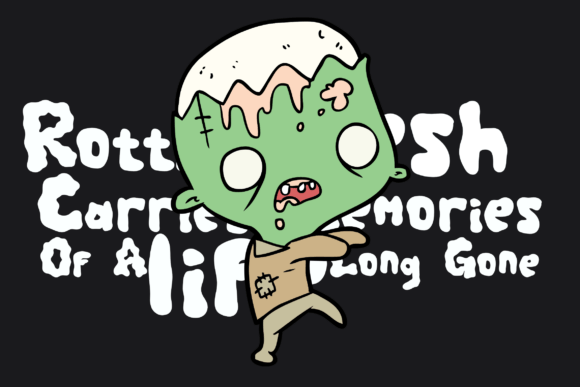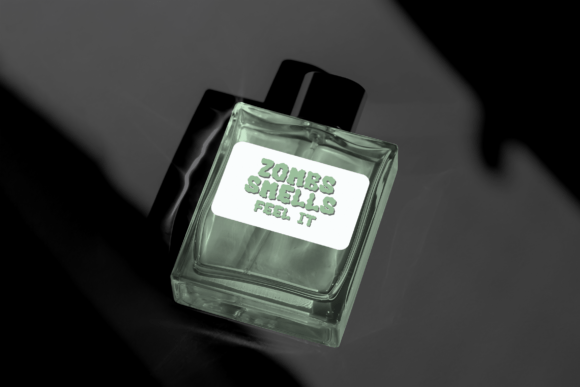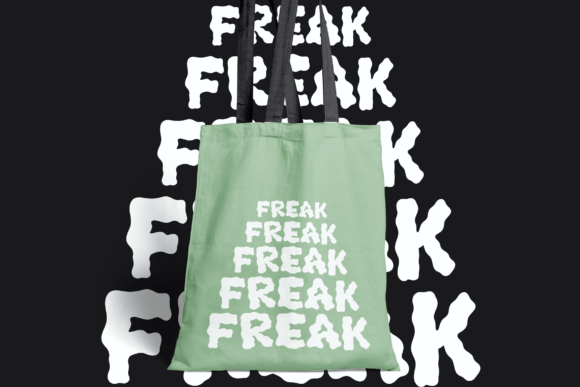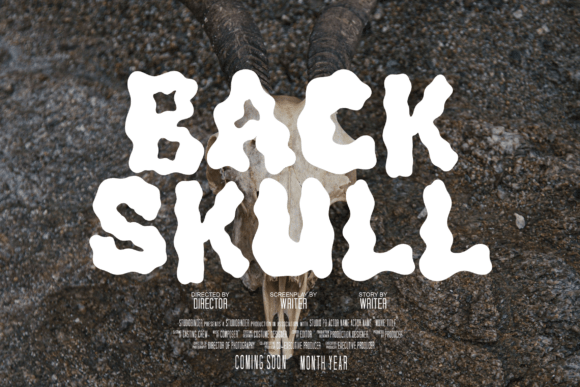
Get Ready for a Spooky Twist in Typography
As a designer, have you ever found yourself brainstorming ideas for a new project, only to be stopped dead in your tracks by a lack of inspiration? For those moments when you need a spark to ignite your creativity, we’ve got just the thing. Introducing the Blob Freak Font, a daringly peculiar Halloween typeface that’s guaranteed to give your designs a thrillingly eerie appeal.
This unique font fuses contemporary with creepy to create an eerie elegance, making it a top-choice for brand identity design, particularly for food and beverage businesses. Whether you’re creating an identity for a Halloween-inspired café or crafting cutting-edge horror merchandise, the Blob Freak Font typifies the ideal blend of scare and suave.
Blob Freak Font Key Features
- Unique Characteristics: Distorted, blob-like shapes and irregular letterforms
- Font Style: Casual, playful, and expressive, suitable for creative projects
Blob Freak Font Review
Overall, I’d say the Blob Freak Font is a unique and fun addition to any design project. Here are some things that work well: ✨
- Highly customizable: The font offers a wide range of colors and textures that can be easily adjusted to fit the desired aesthetic.
- Great for creating eye-catching headlines: The bold and playful design of the font makes it perfect for grabbing attention and drawing the viewer’s eye to important information.
- Works well in digital and print formats: I was impressed with how well the font held up in both digital and print formats, maintaining its clarity and vibrancy.
- Not ideal for body text: While the font is perfect for headlines, it may be difficult to read in large blocks of body text due to its playful and irregular design.
- May not be suitable for formal or professional projects: The font’s playful nature may not be suitable for formal or professional projects, such as business reports or academic papers.
- Requires some experimentation: Finding the right combination of colors and textures can be a bit trial-and-error, so be prepared to spend some time experimenting with different options.
Overall, I think the Blob Freak Font is a great addition to any designer’s toolkit, but it’s essential to use it judiciously and consider its limitations before applying it to a project.
Tips for Getting the Most Out of Blob Freak Font
For best results, use Blob Freak Font in combination with bold colors and playful graphics. This font is perfect for creating eye-catching titles, headings, and social media posts.
Blob Freak Font is ideal for:
- Social media posts and graphics
- Event invitations and flyers
- Blog and article titles
- Branding and logo designs
Alternatives to Blob Freak Font for Designers
Alice
Alice is a playful, handwritten font that can be used for titles, headings, and other decorative elements. It features a mix of cursive and script elements, giving it a unique and whimsical feel.
Compared to Blob Freak Font, Alice has a more refined and elegant appearance, making it suitable for a wider range of design applications.
Literata
Literata is a modern, handwritten font that features a mix of bold and delicate strokes. It’s perfect for creating attention-grabbing headings, titles, and quotes.
Literata has a more cohesive and polished appearance compared to Blob Freak Font, making it a great choice for designs that require a touch of sophistication.
Carolyna Pro is a modern, script font that features a mix of elegant and playful elements. It’s perfect for creating beautiful titles, headings, and quotes.